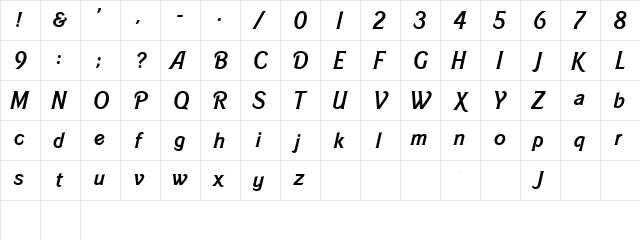
Barbie MediumItalic
Design Context for Barbie Typeface
Barbie offers clean, dependable letterforms without strong stylistic allegiance, making it a practical choice for designers who need flexibility. Its italic angle brings a sense of urgency and motion to the letterforms.
Pro Tip: Use Barbie for emphasis, pull quotes, and subheadings where its slanted energy can add rhythm to the layout.